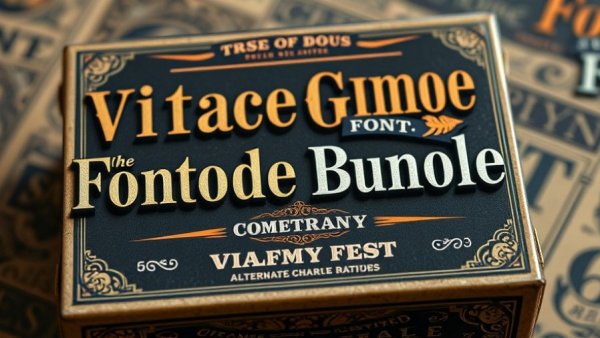
Unlock the Charm of Vintage Fonts: Essential Tools for Every Designer
Intricate vintage font bundle advertisement for graphic designers.
Reviving the Golden Age: Why Vintage Fonts Matter
As graphic designers delve into the essence of their craft, one undeniable trend stands out: the charm of vintage fonts. They not only symbolize nostalgia but also evoke a unique character that modern, minimalist designs often lack. The late 19th to early 20th century, a period defined by ornate artistry and hand-lettered designs, produced fonts that resonate deeply with audiences today. Utilizing vintage fonts can set a project apart, lending it a classically refined aesthetic that modern typefaces might struggle to depict.
Discover the Heritage Type Vintage Font Bundle
Tobias Saul’s meticulously crafted Vintage Font Bundle offers a treasure trove for designers seeking to infuse their work with historical elegance. This collection includes six distinctive fonts, each capturing the spirit of their respective eras. For instance, the 'Blackriver' font channels vintage packaging designs, while 'Mirosa' boasts over 400 alternate characters, ensuring versatile applications in various design projects.
Elevate Your Designs with Comprehensive Resources
Beyond just fonts, the bundle is accompanied by 25 ready-made logo templates and over 200 ornamental elements. This feature allows for ease of creativity, letting designers construct projects that resonate with the vintage aesthetic, minus the stressful design work. As a bonus, the fonts and assets facilitate an engaging approach to projects, whether it’s for a local startup or a rebranding initiative.
Why Every Designer Needs Vintage Fonts
When clients search for a graphic designer near me, they often seek someone who can enhance their brand's identity. A vintage font can be a game-changer in captivating potential customers. Whether for promotional flyers, packaging design, or social media posts, vintage typography can create memorable impressions. The charm and originality of these fonts speak volumes about a brand's story, making it essential for designers to harness this power.
Making the Most of the Vintage Aesthetic
Incorporating vintage fonts into design isn’t just an artistic choice; it’s a strategic one. To maximize their effectiveness, designers should experiment with pairings. A classic font like 'Old Alfie' beautifully complements modern sans-serif fonts, creating a balance that feels both nostalgic and contemporary. Furthermore, understanding the context resonates with audiences deeply, transforming their engagement with the content.
Conclusion: Invest in Timeless Design